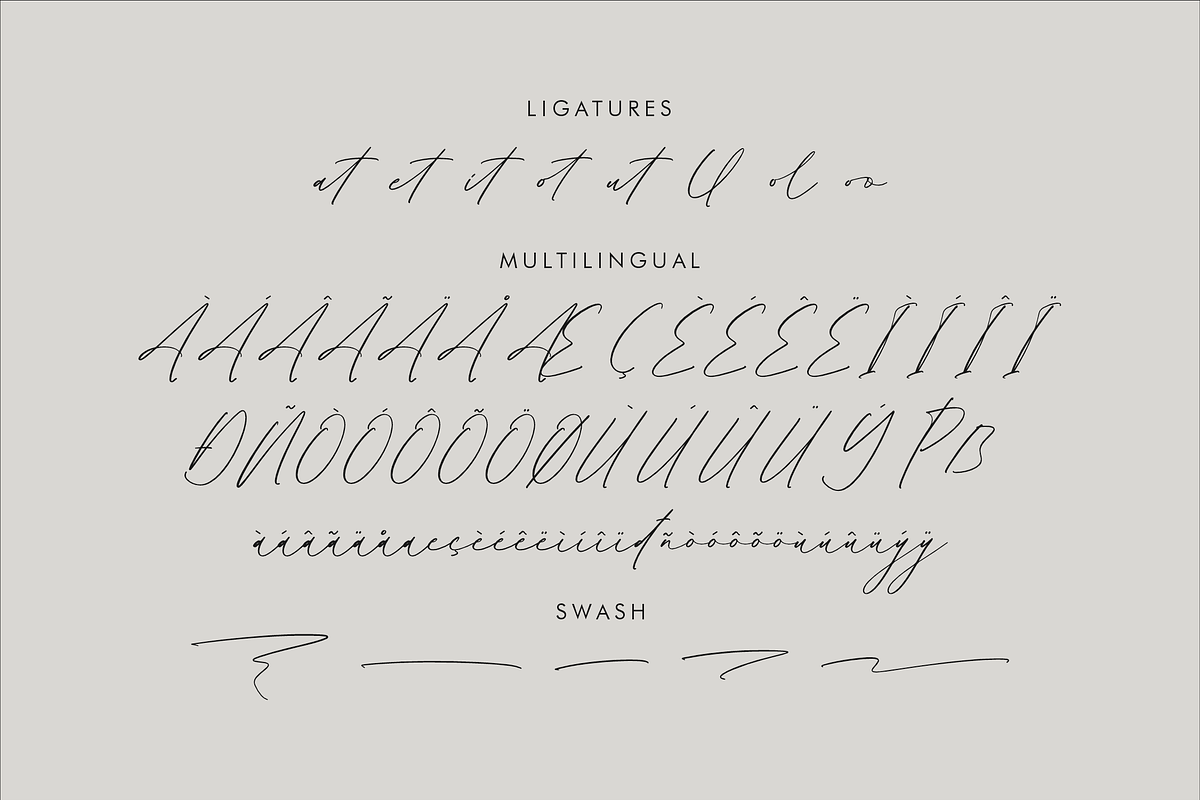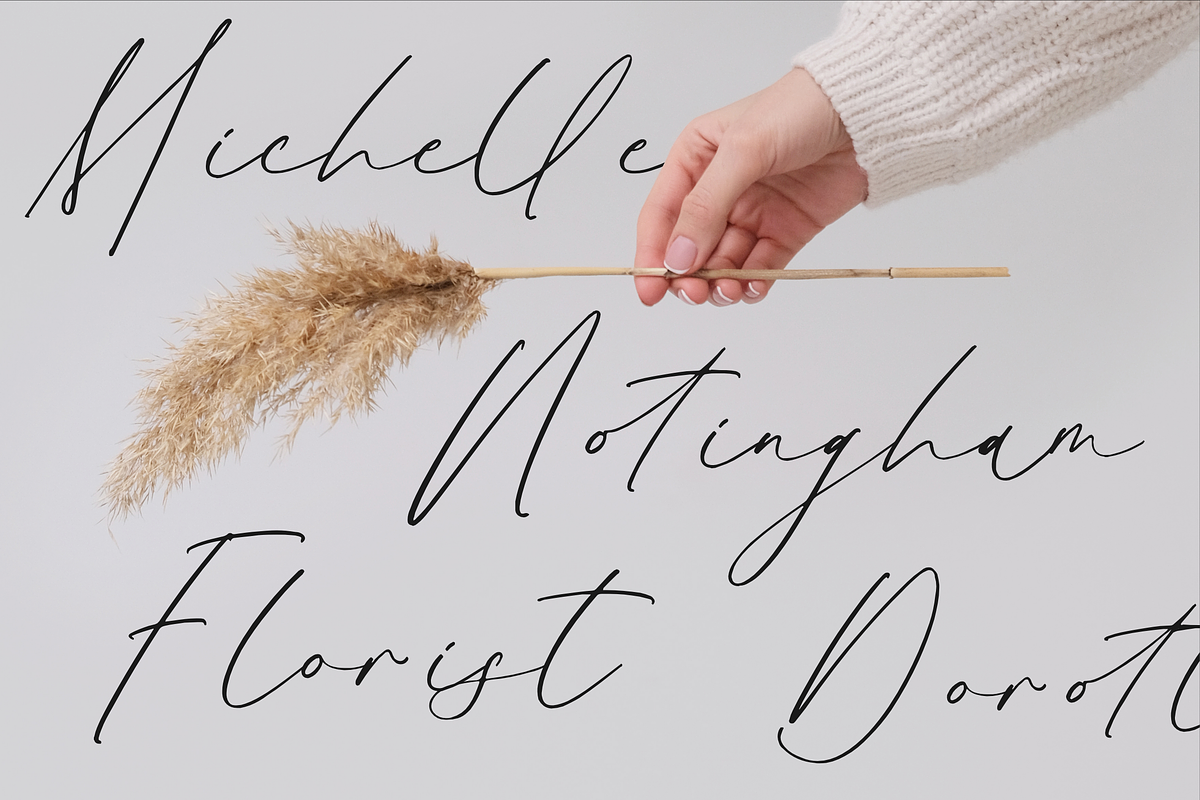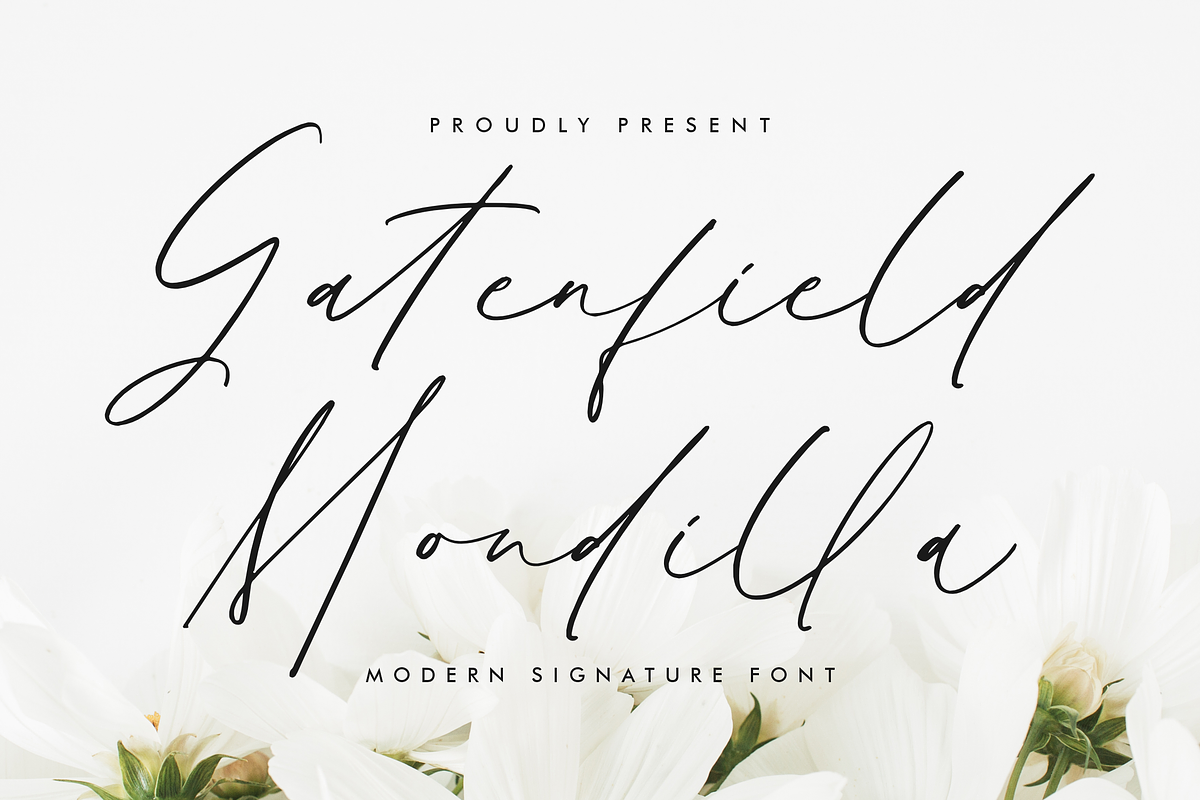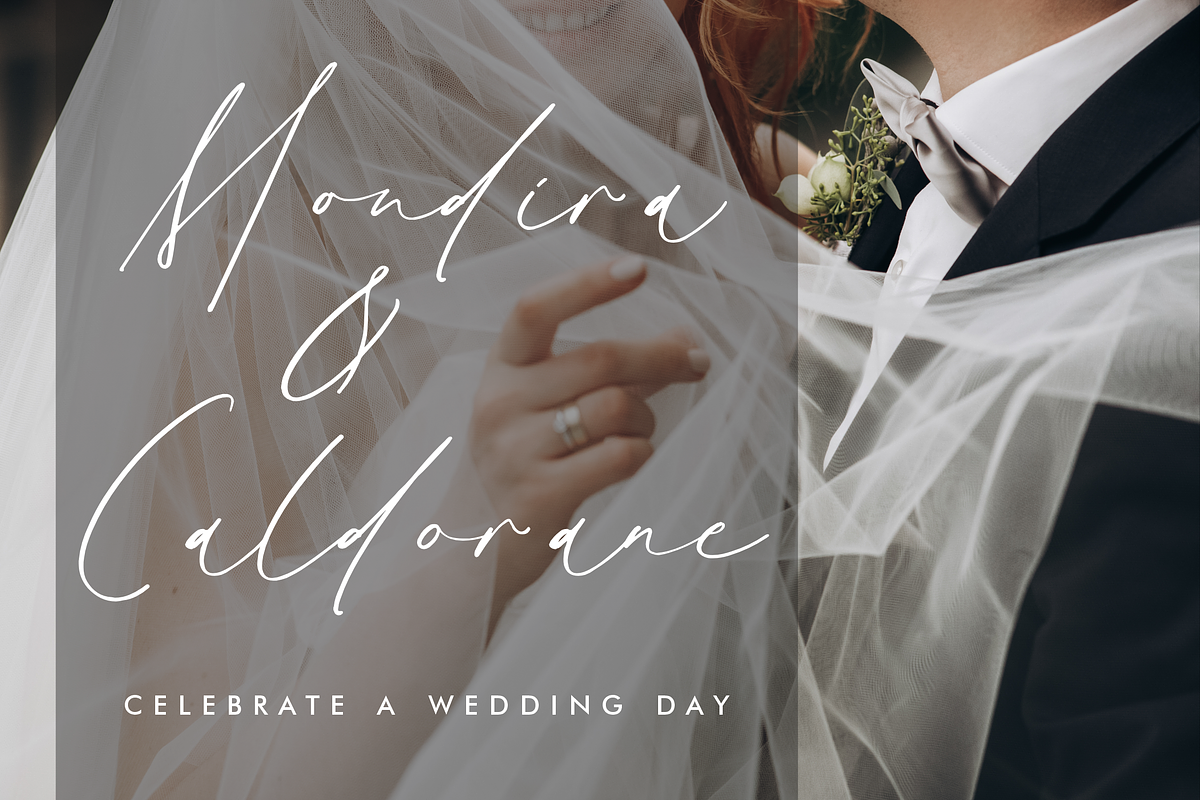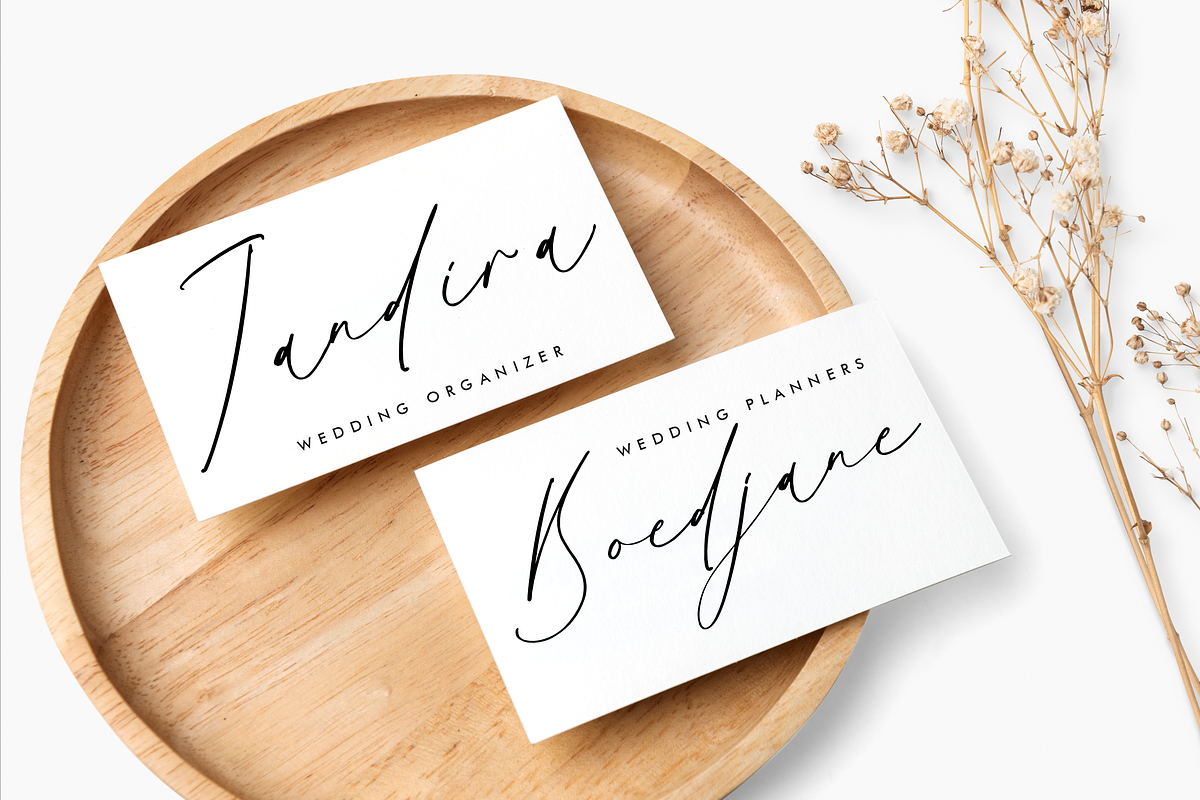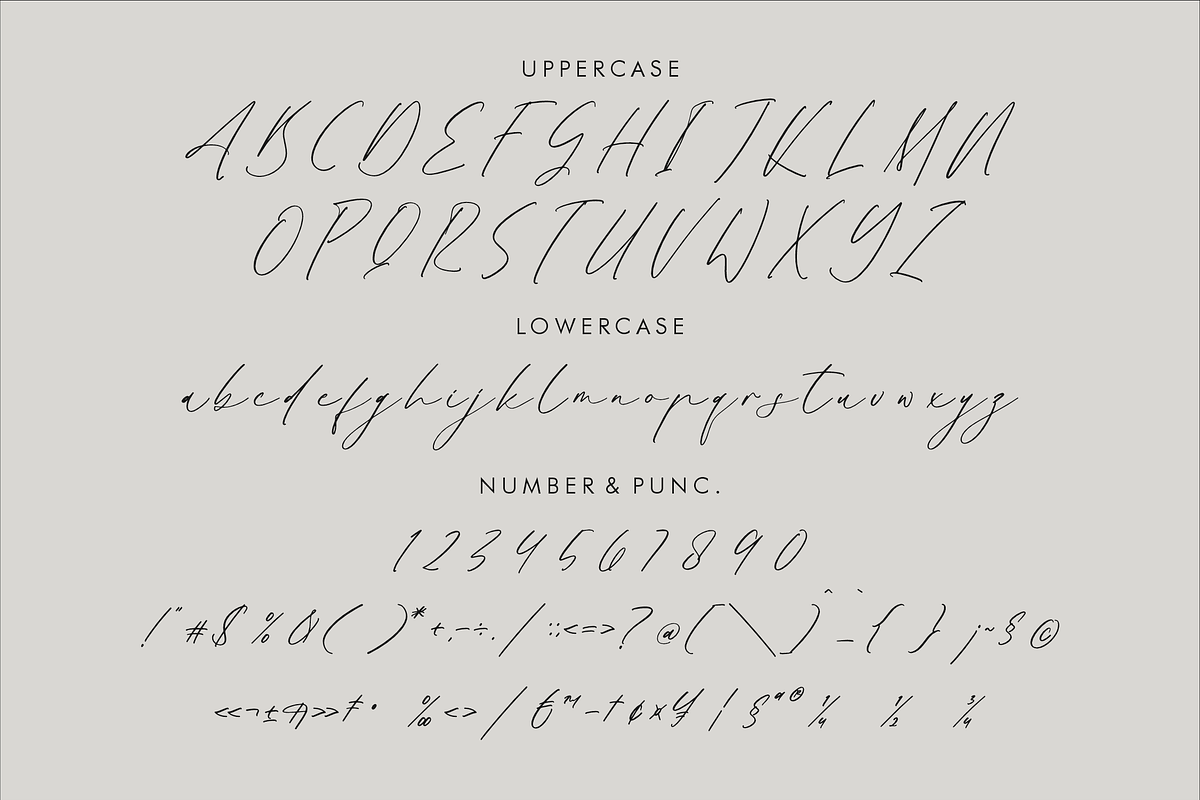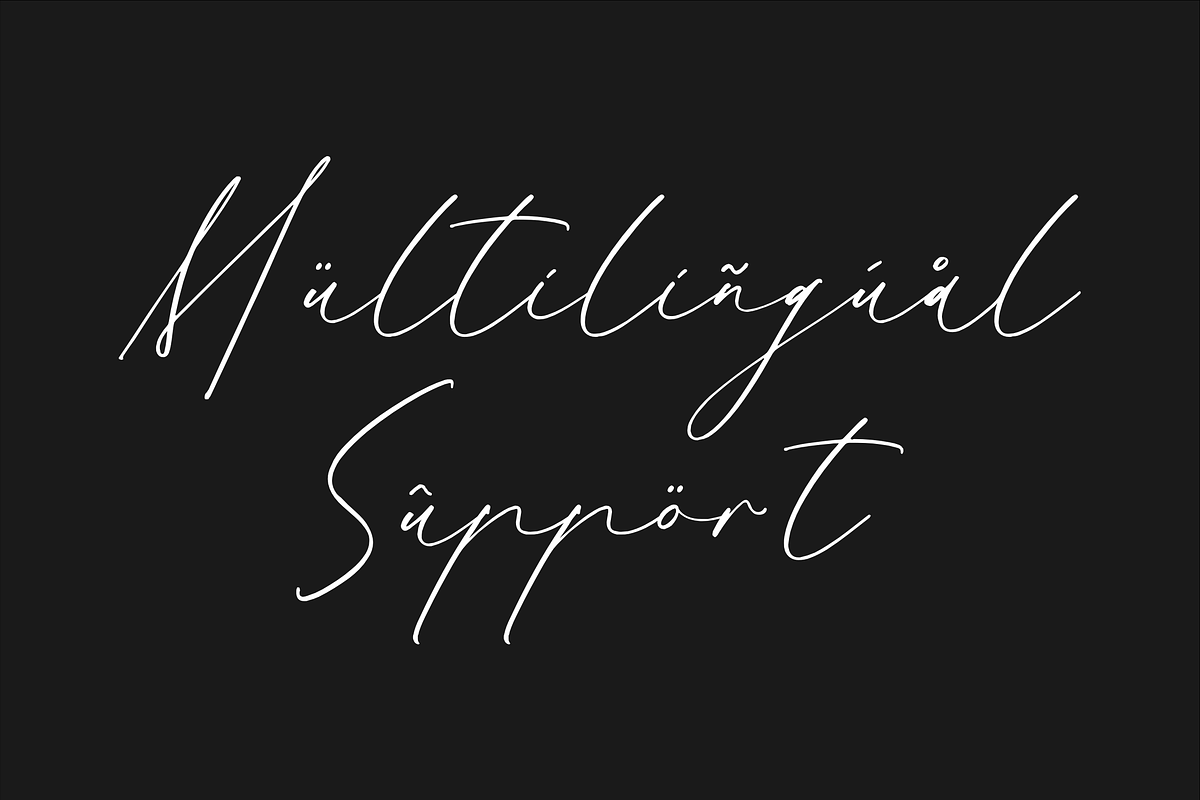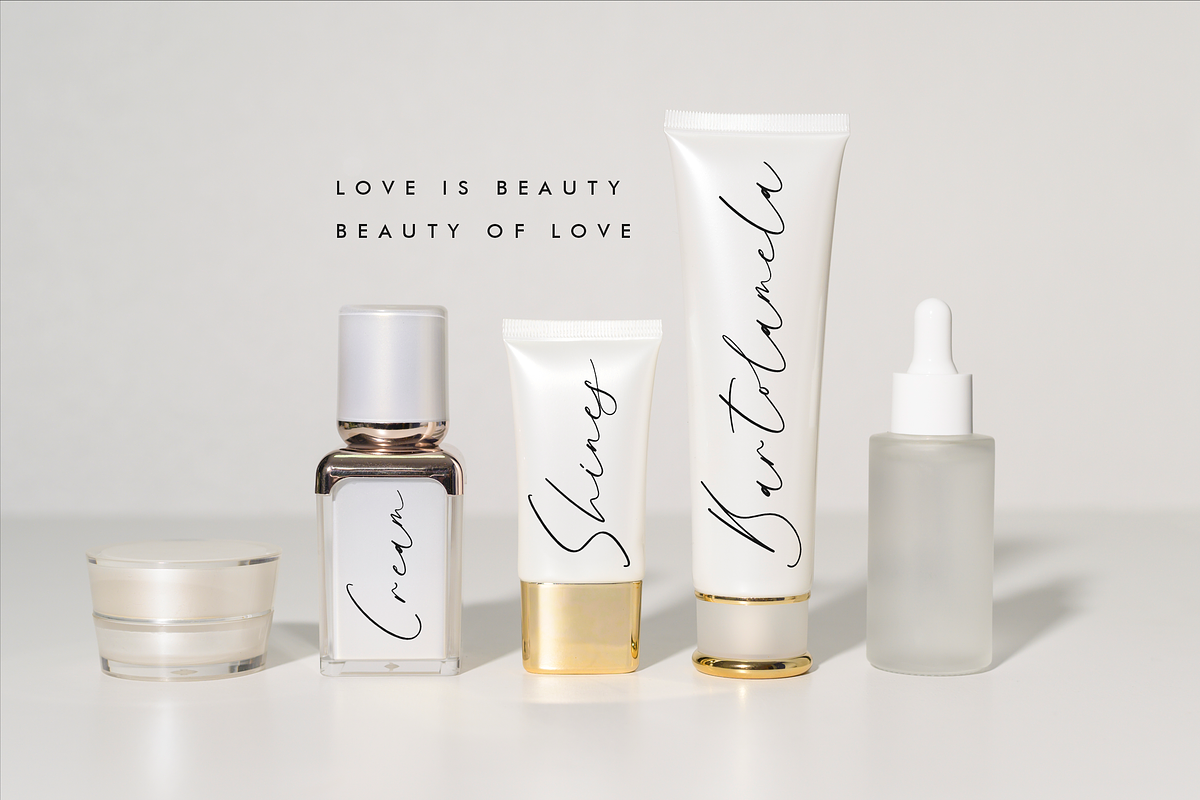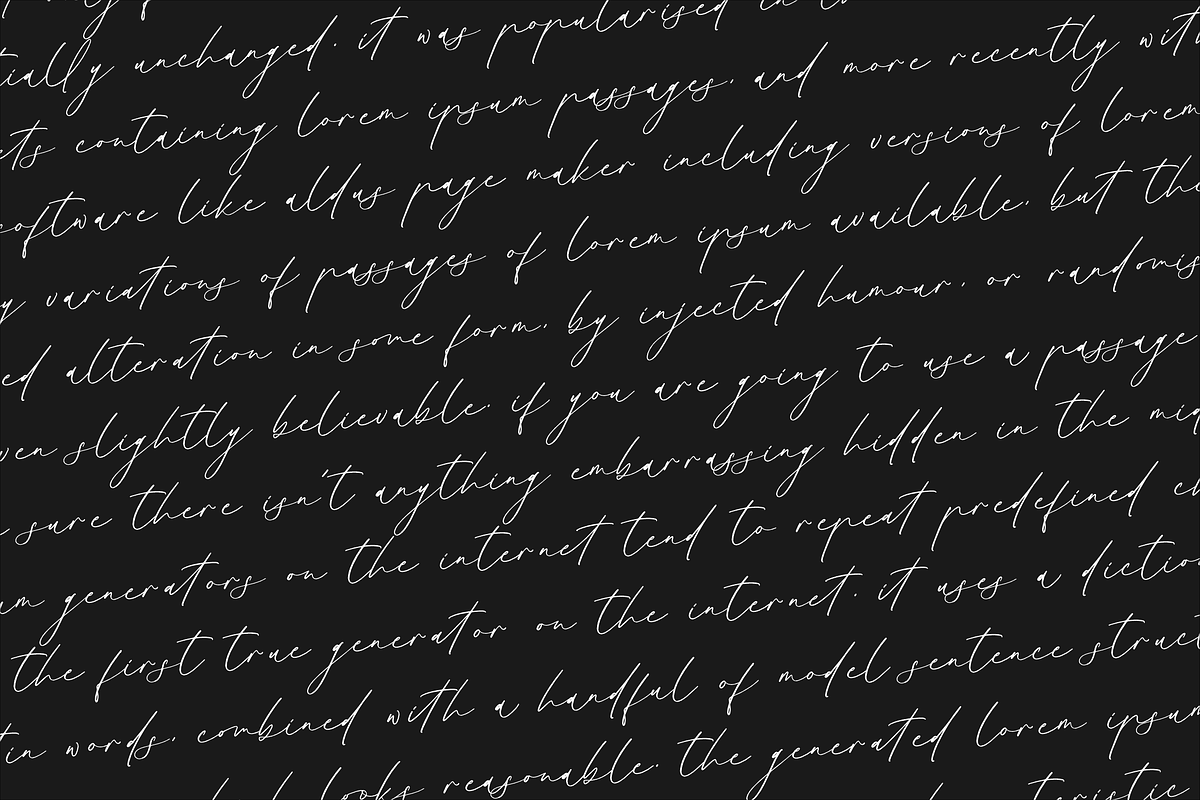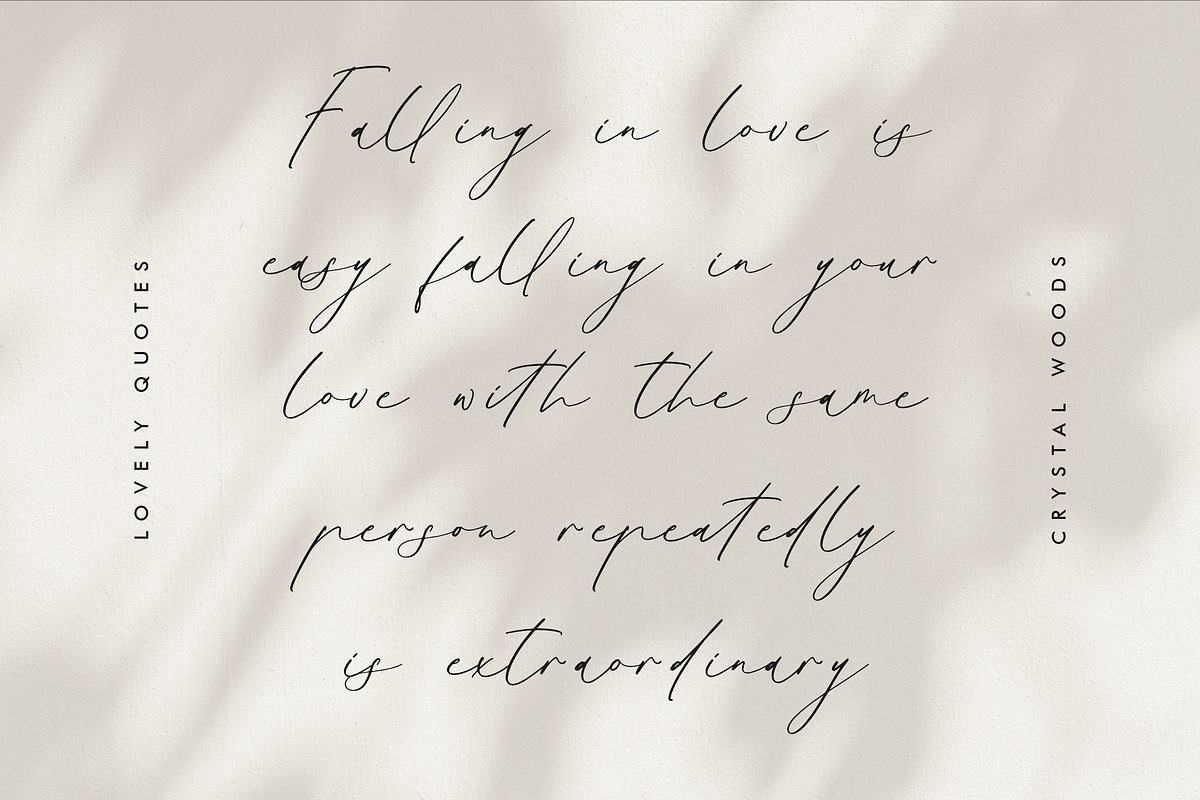
Gatenfield Mondilla Modern Signature
Proudly present Gatenfield Mondilla - Modern Signature Font , created by Storytype, A luxury script that has own unique style & modern look. This typeface is perfect for an elegant & luxury logo, book or movie title design, fashion brand, magazine, clothes, lettering, quotes, and so much more.